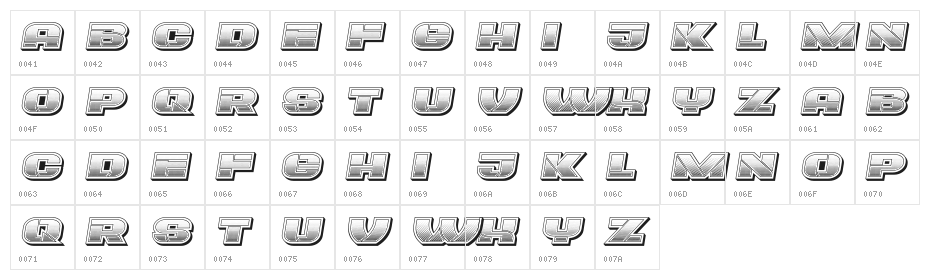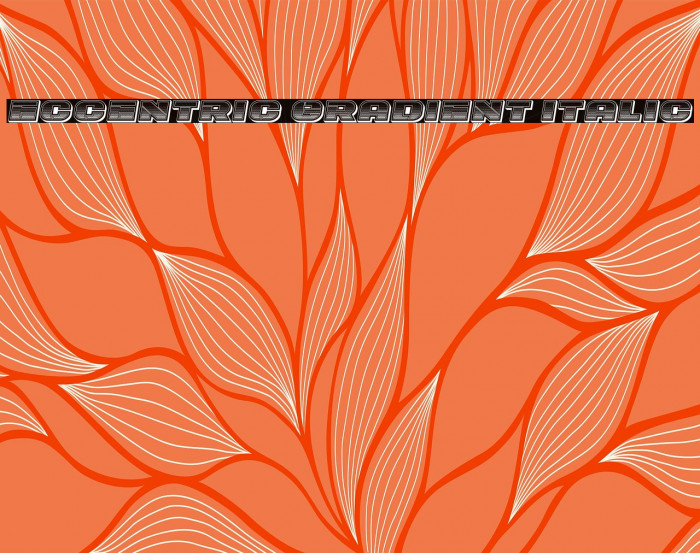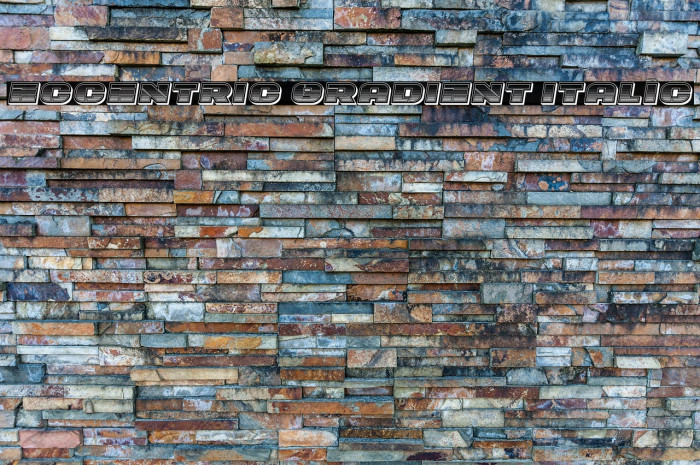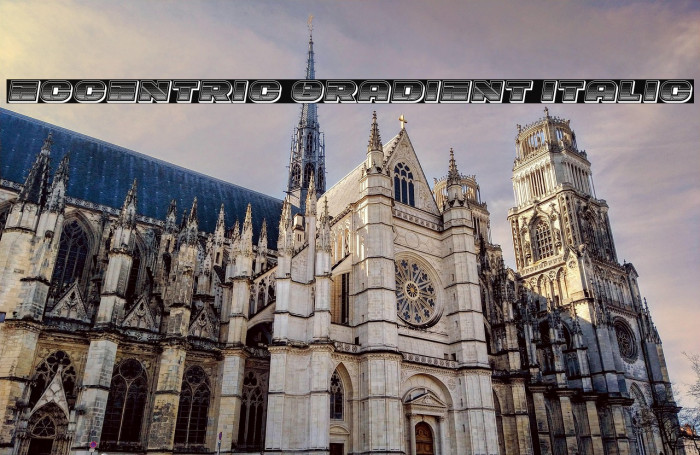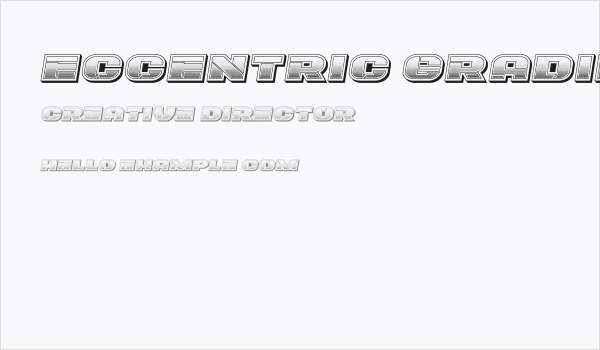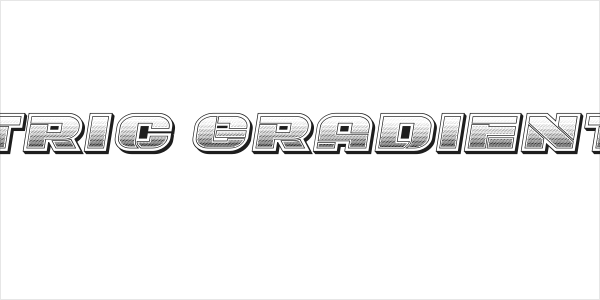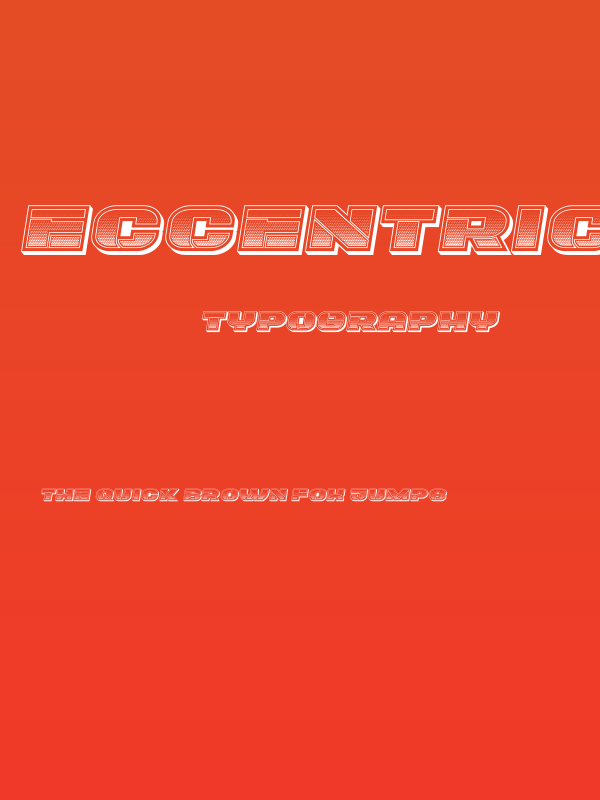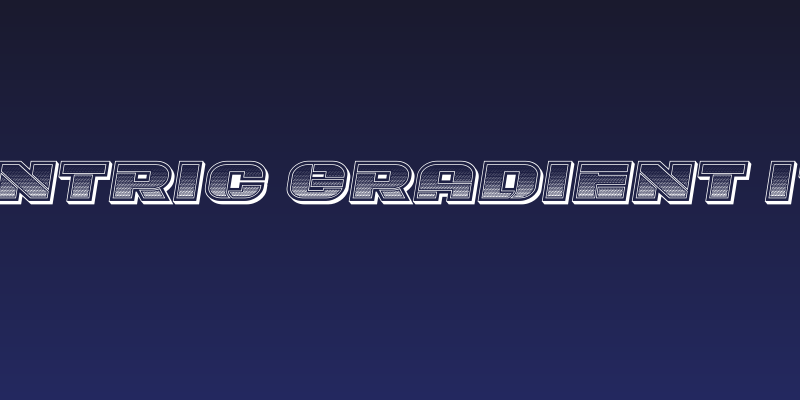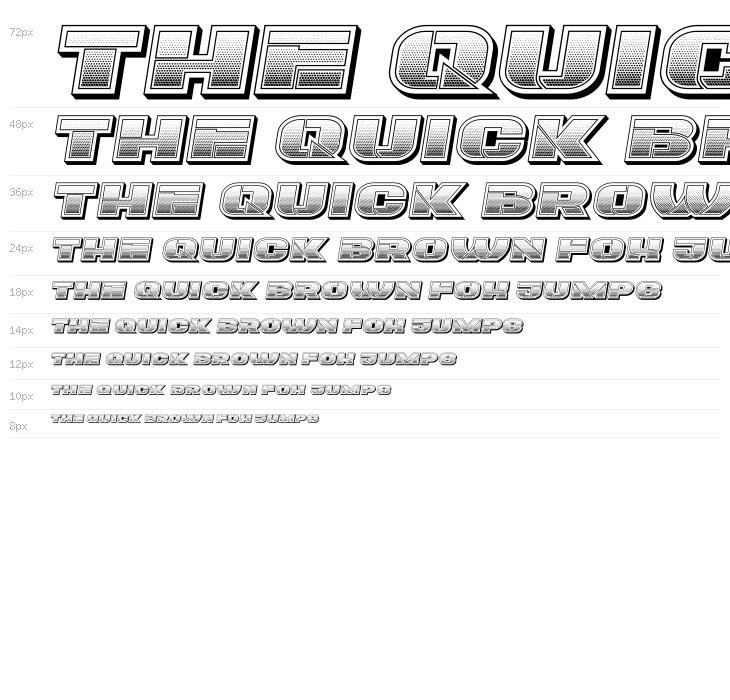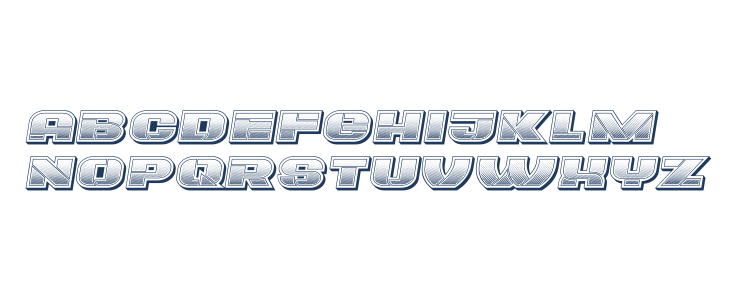
Eccentric Gradient Italic Font
Eccentric Gradient Italic Description
This font features a bold and dynamic design with a distinct gradient effect that adds depth and dimension to each character. The letters are uppercase, with a strong geometric structure and a three-dimensional appearance. The italic slant gives it a sense of motion and energy, making it stand out in any design. The intricate detailing within each letter adds a layer of complexity, making it suitable for eye-catching headlines and creative projects. The font's unique style is both modern and playful, perfect for designs that require a bold statement.
| Proposed Projects | Ideal for posters, logos, branding, and any project needing a striking, modern typeface. |